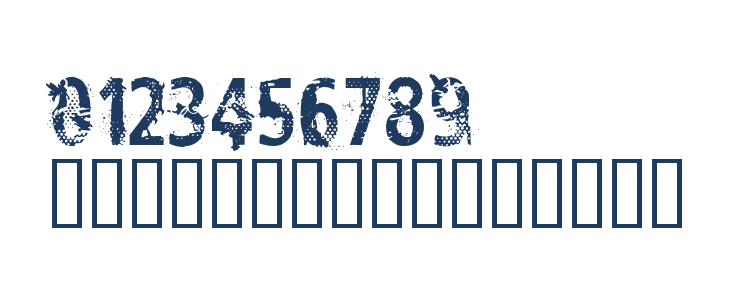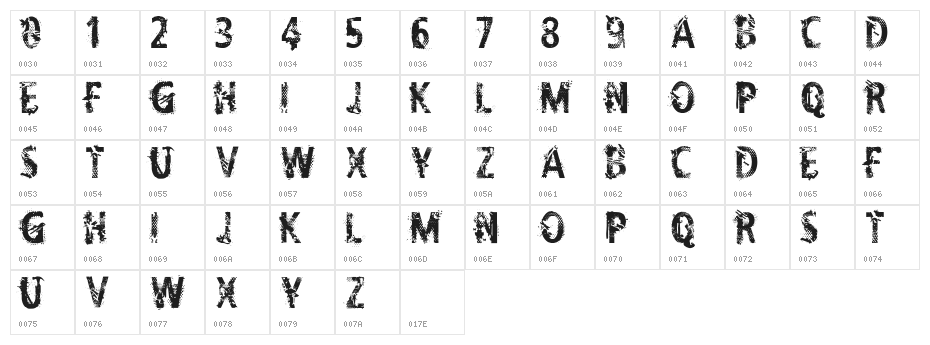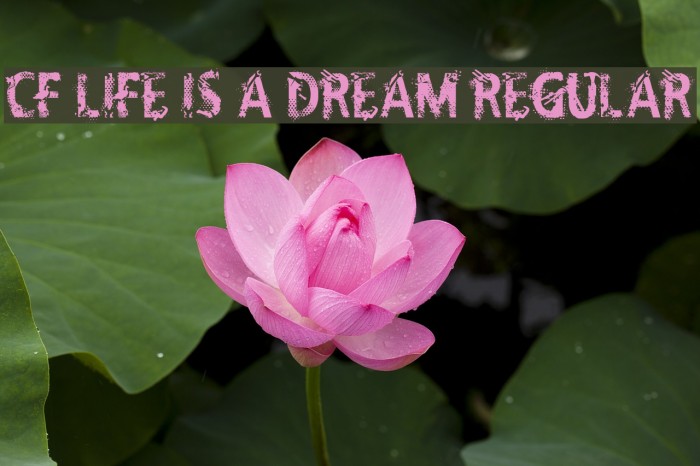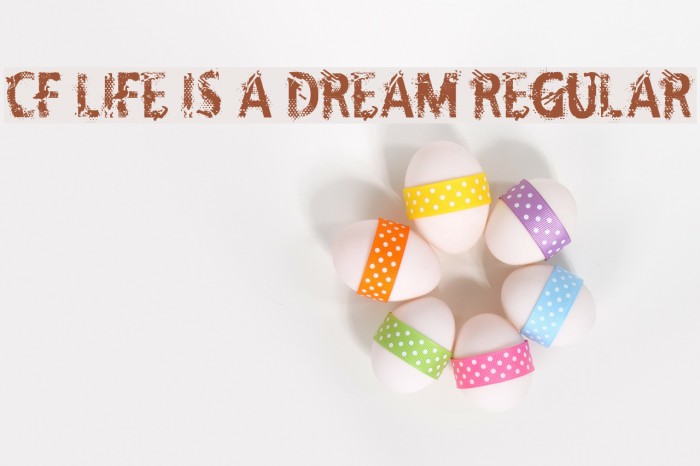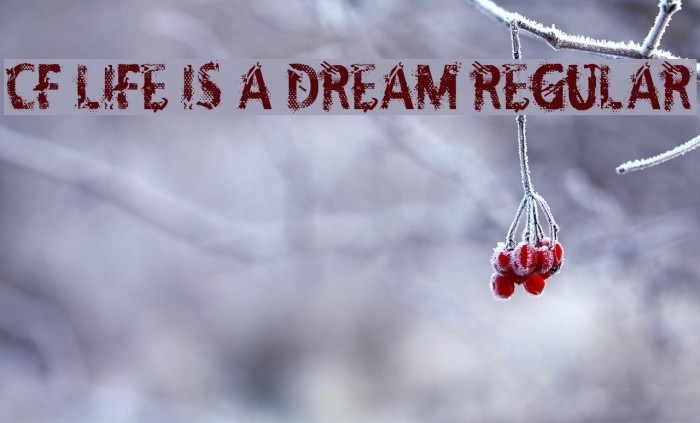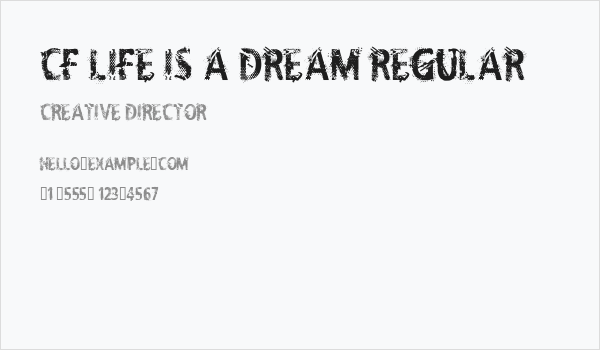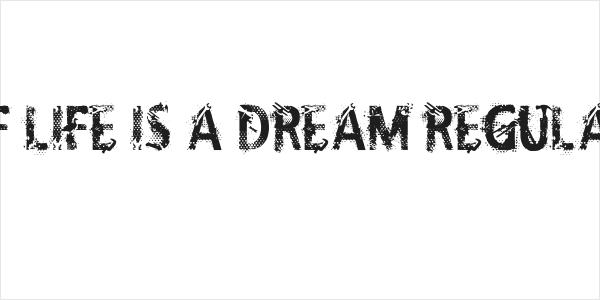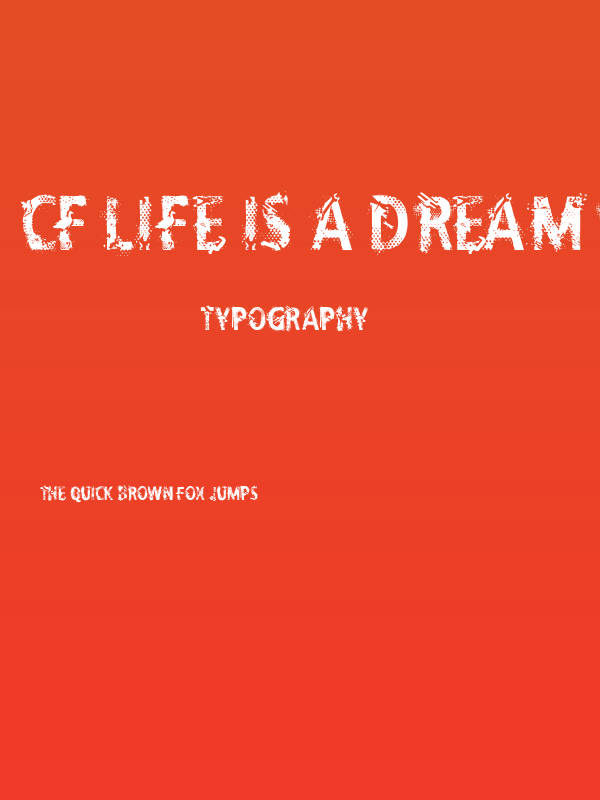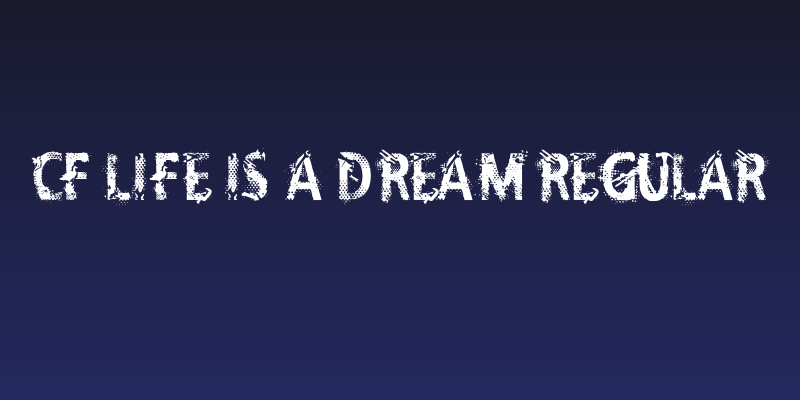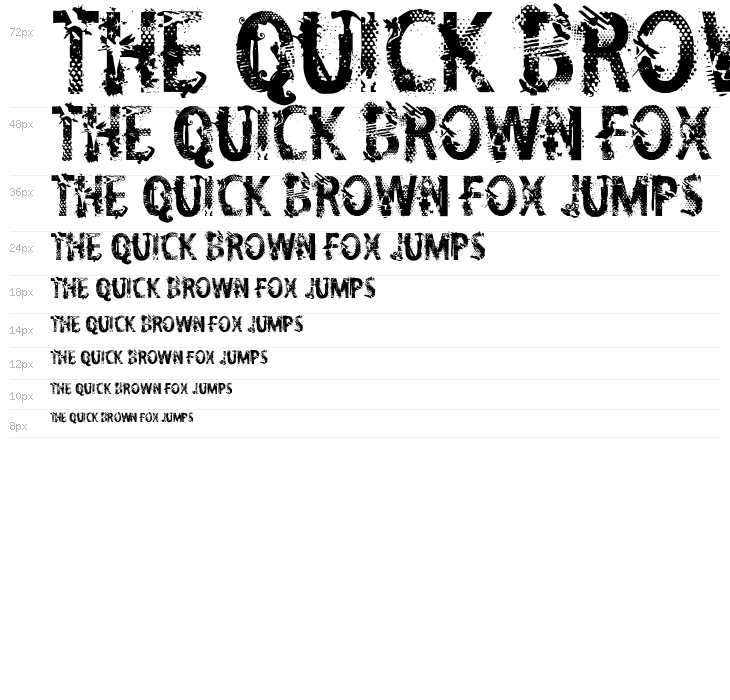
CF Life Is A Dream Regular Font
CF Life Is A Dream Regular Description
This font features a highly decorative and distressed style, characterized by a grunge aesthetic with textured, worn-out edges. Each character appears as if it has been weathered over time, with irregular patterns and a mix of solid and faded areas. The design incorporates elements that resemble splatters and scratches, giving it a rugged, urban feel. This font is bold and eye-catching, making it suitable for projects that require a strong visual impact. The uppercase and lowercase letters maintain a consistent style, while the numbers and special characters follow the same distressed theme.
| Proposed Projects | Ideal for album covers, posters, streetwear branding, and any project needing a gritty, urban vibe. |